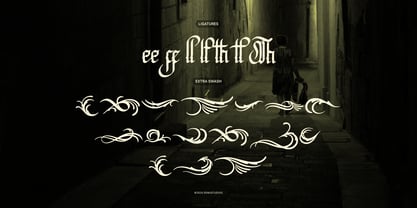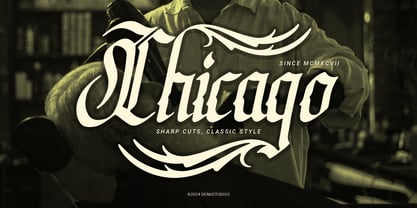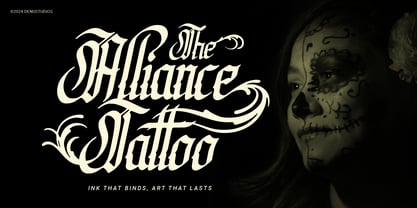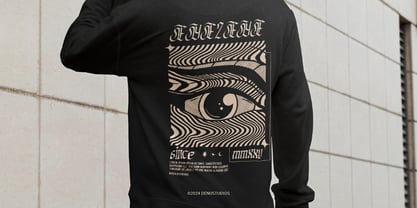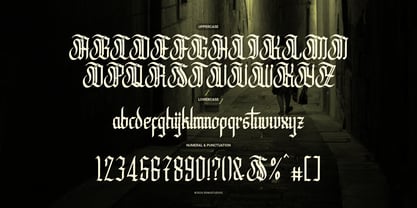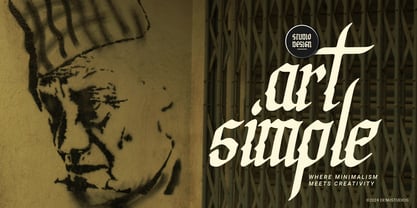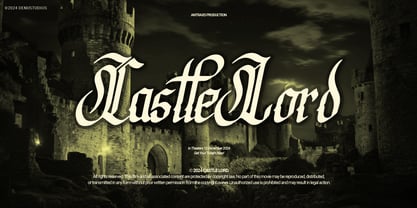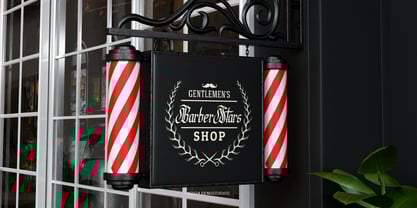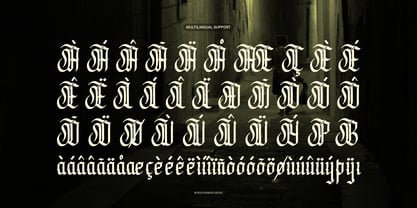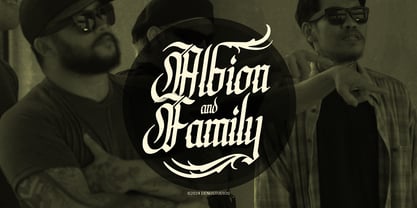
Syclone
by Denustudio
The Syclone Font Family was designed by Dede Nugraha and published by Denustudio. Syclone contains 2 styles and family package options.
Syclone | Blackletter Typeface, from Denustudios, suitable for any projects such as: logos, branding projects, homeware designs, product packaging, mugs, quotes, posters, shopping bags, t-shirts, book covers, name card, invitation cards, greeting cards, label, photography, watermark, special events, and all your other lovely projects that need a Blackletter Font taste.
• Alternate and Ligature